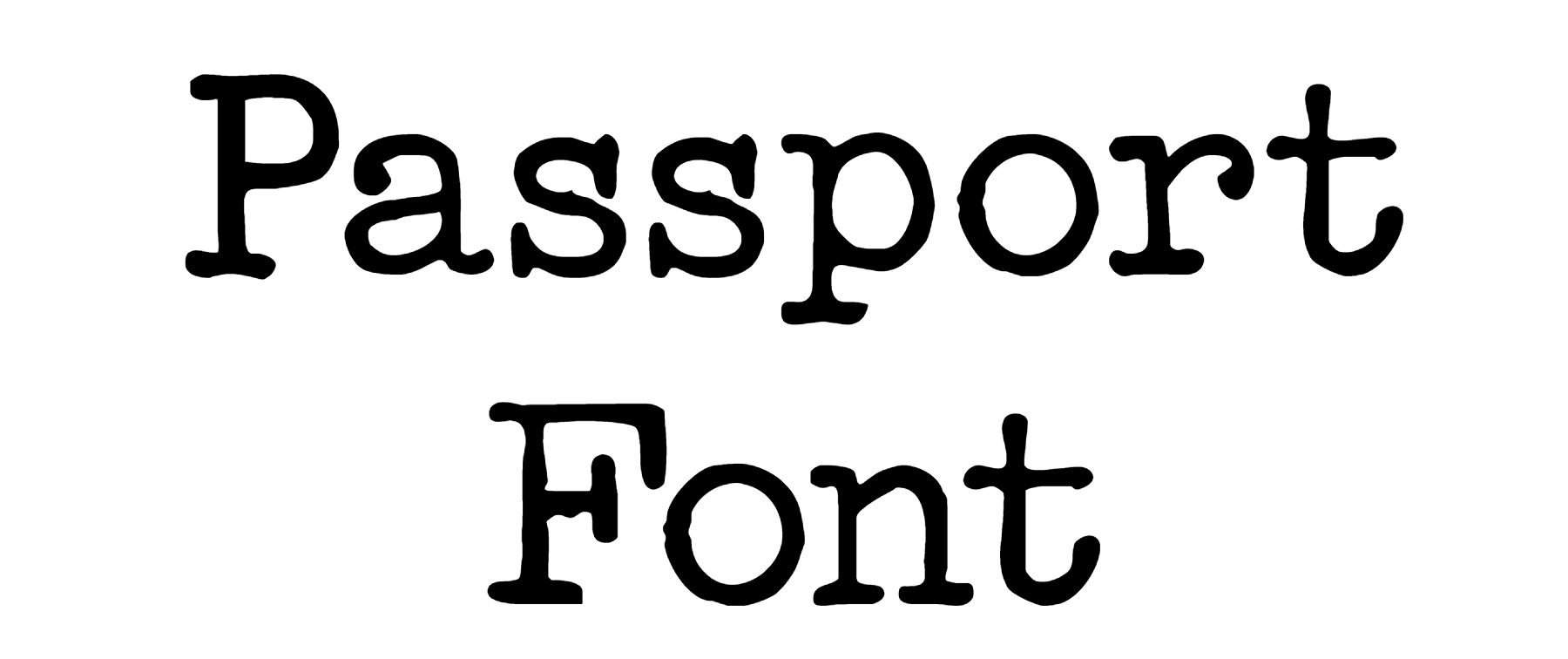
Passport
Passport is a fancy font created by Joseph V. Coniglio (CONIGLIO USA, 914.980.8788) and released through CONIGLIO USA (1997). Bold and full of character, it's built to stand out rather than blend in. You can download it for free and test it with your own words in the preview above.
- Designer: Joseph V. Coniglio (CONIGLIO USA, 914.980.8788)
- Publisher: CONIGLIO USA
- Year: 1997 (from the copyright line in the font)
- Glyphs: 233
What You Can Type With Passport
You get every letter from A to Z in both cases and all the numbers from 0 to 9, which means Passport can handle full sentences, dates and prices. Everyday marks like &, !, ? and @ are there too. Thanks to its accented letters, it also works for Spanish, French, German, Portuguese and Italian, not just English.
Where Passport Works Best
Think of Passport for posters, logos and eye-catching headlines. Use it for one standout word or headline and let simpler fonts handle the rest.
Who designed Passport font?
Does Passport support accented letters?
Yes. Passport includes the accented letters needed for Spanish, French, German, Portuguese and Italian, so it works for more than just English.